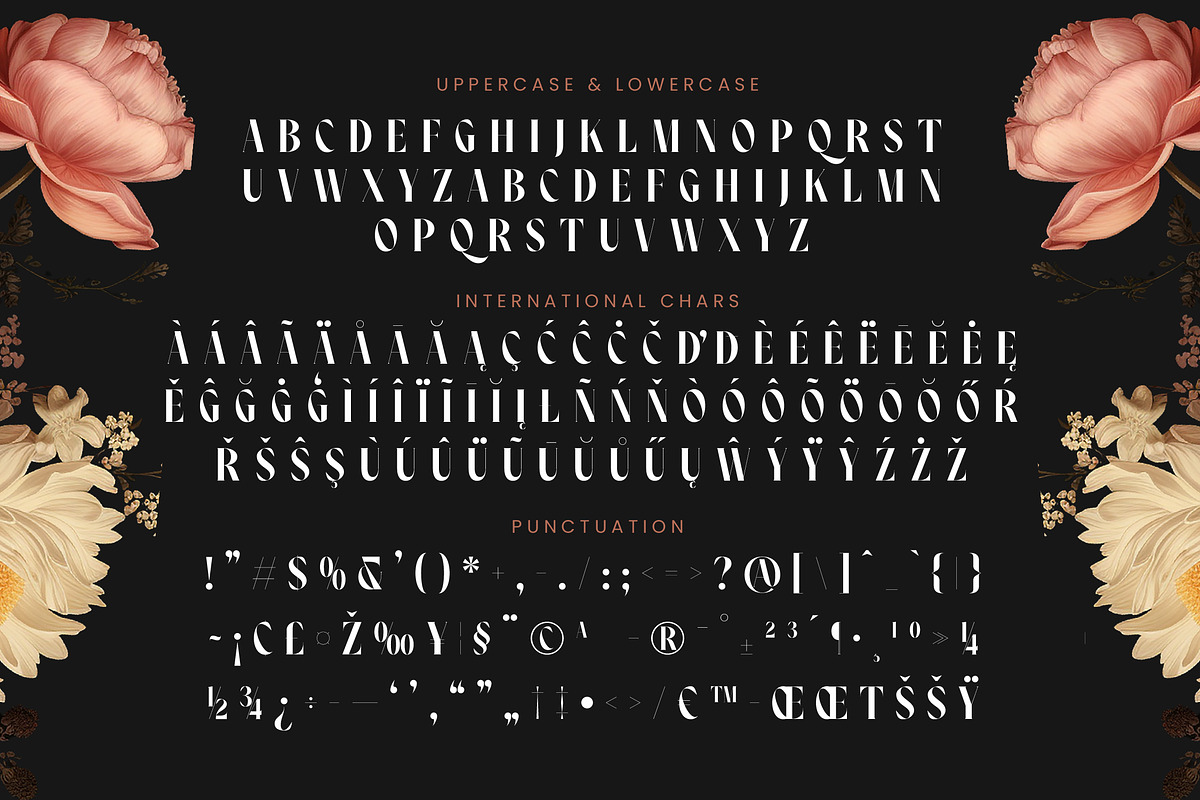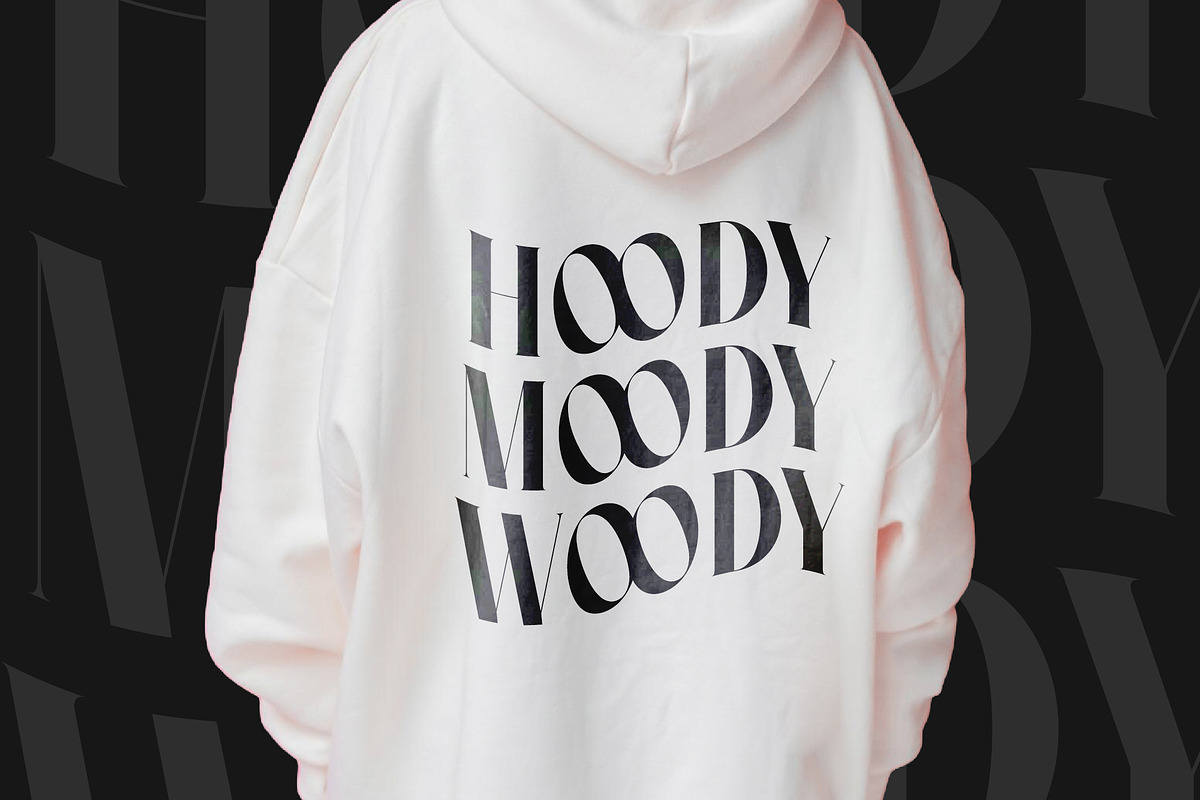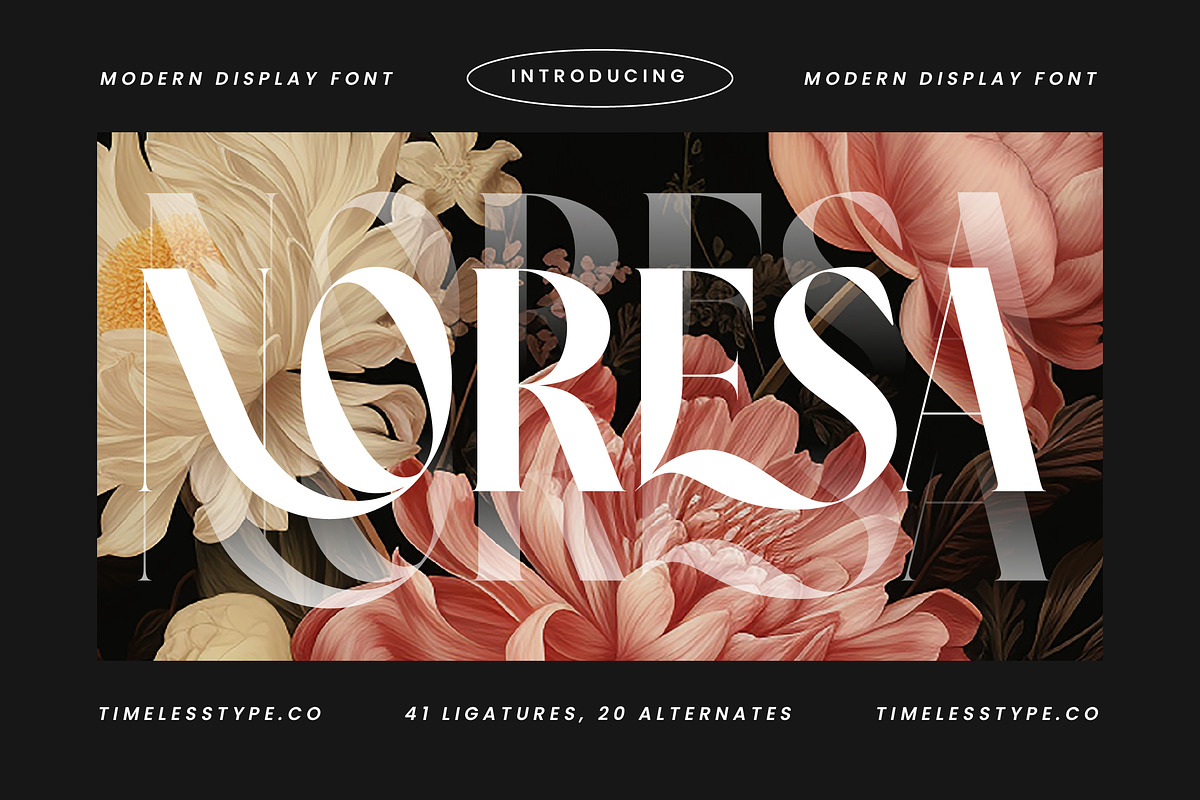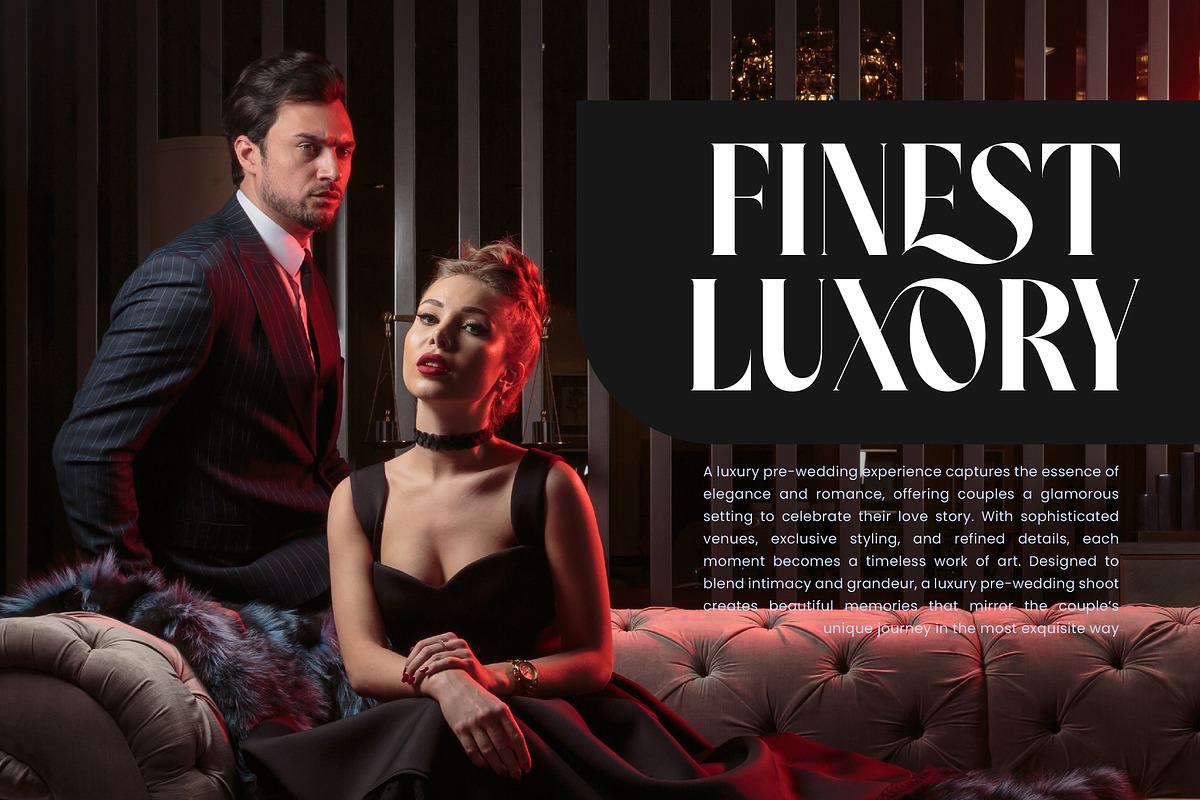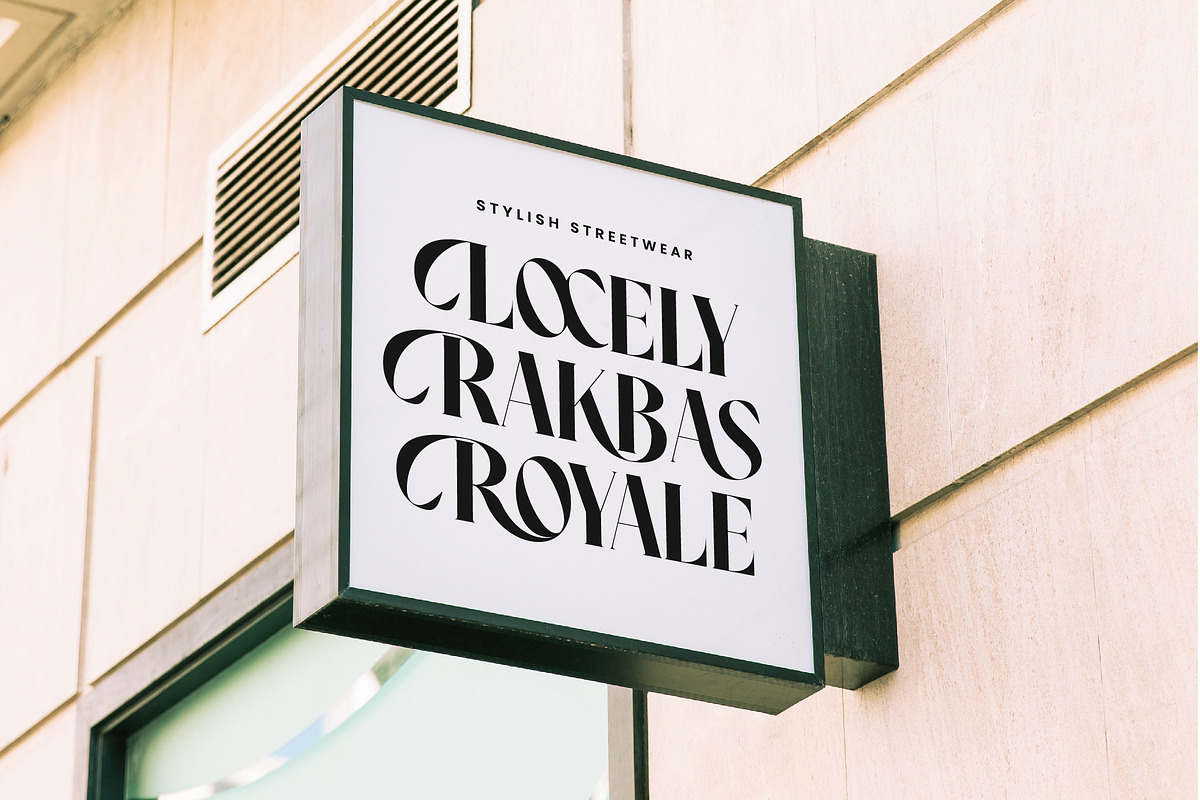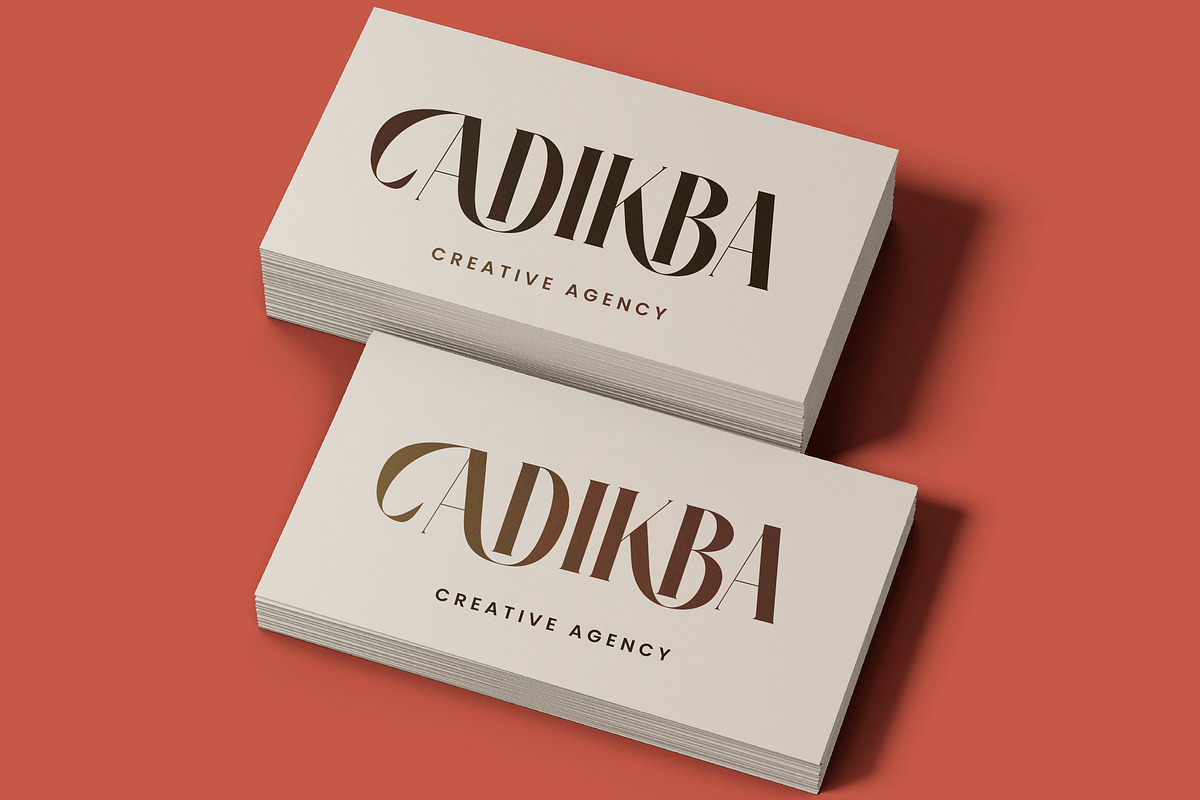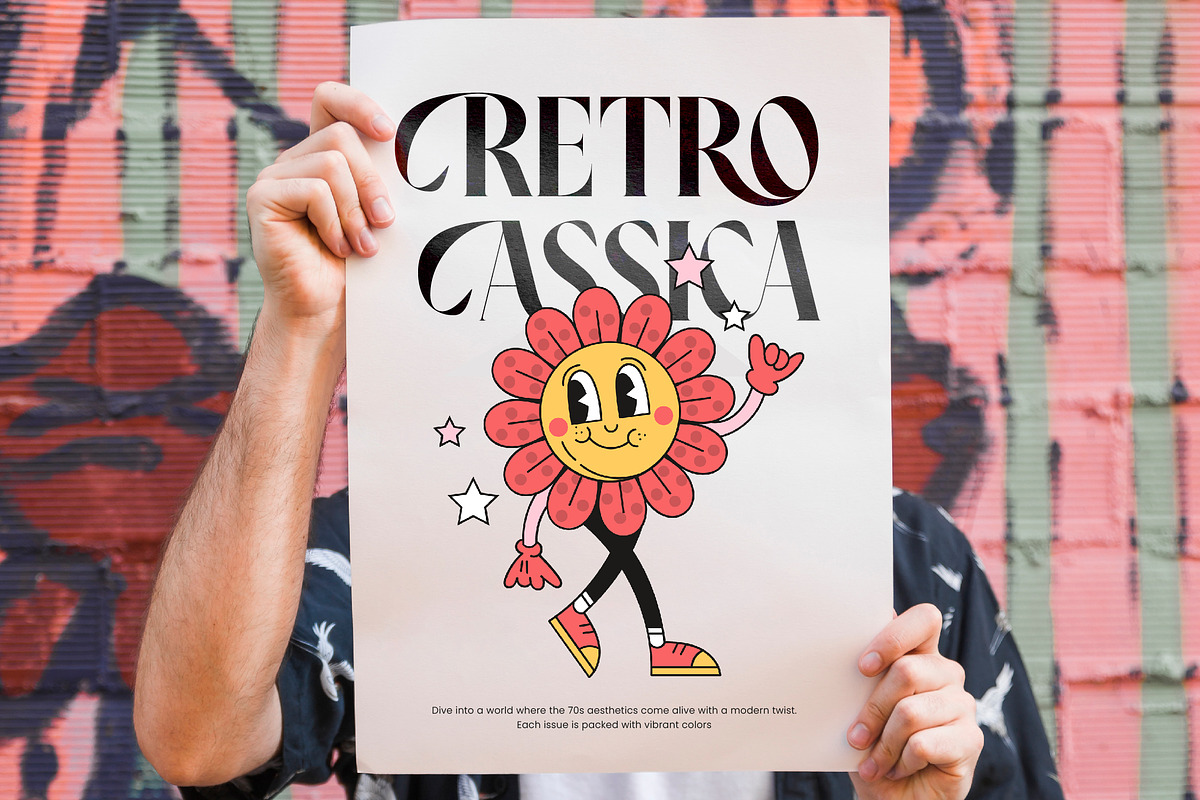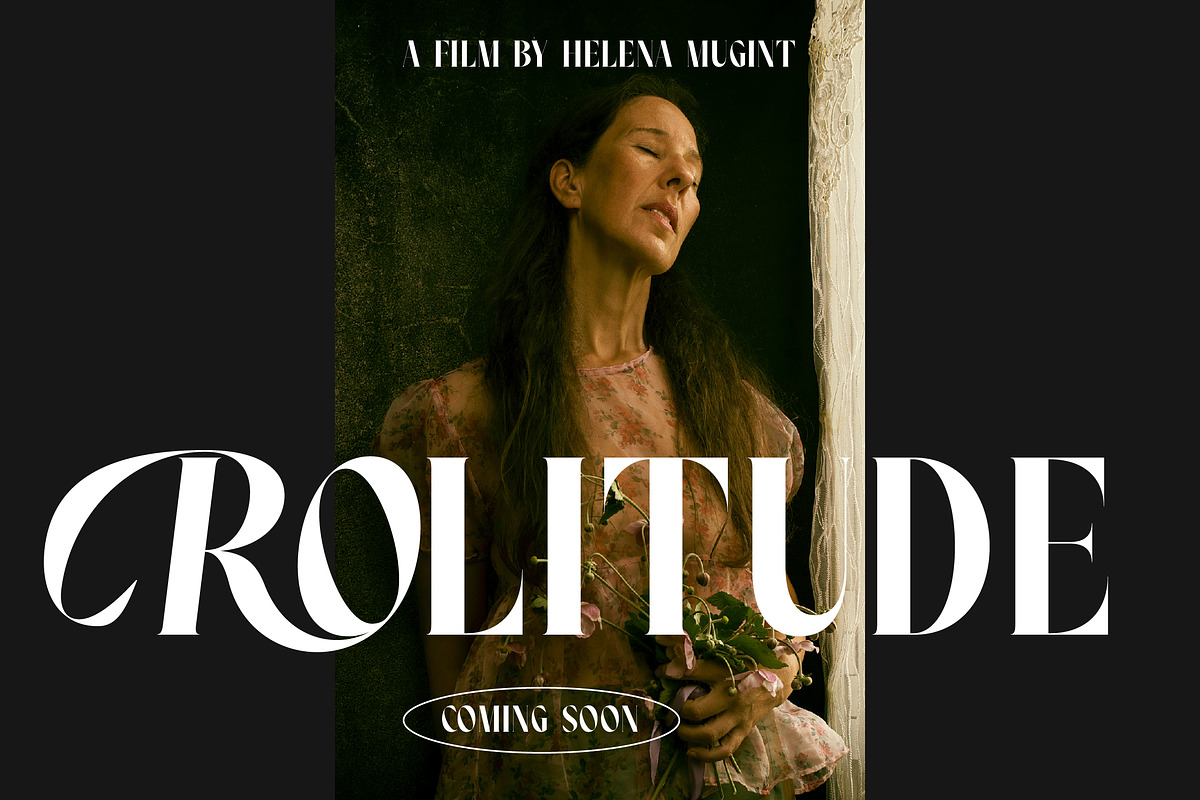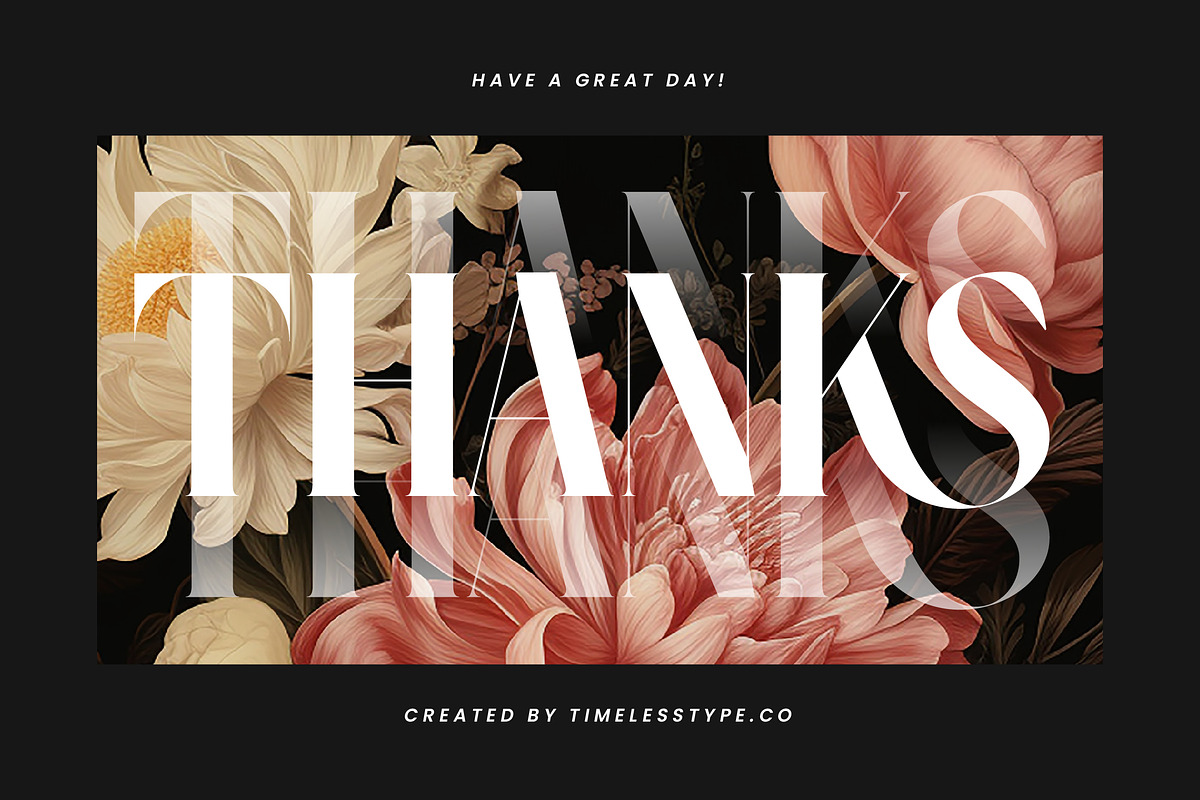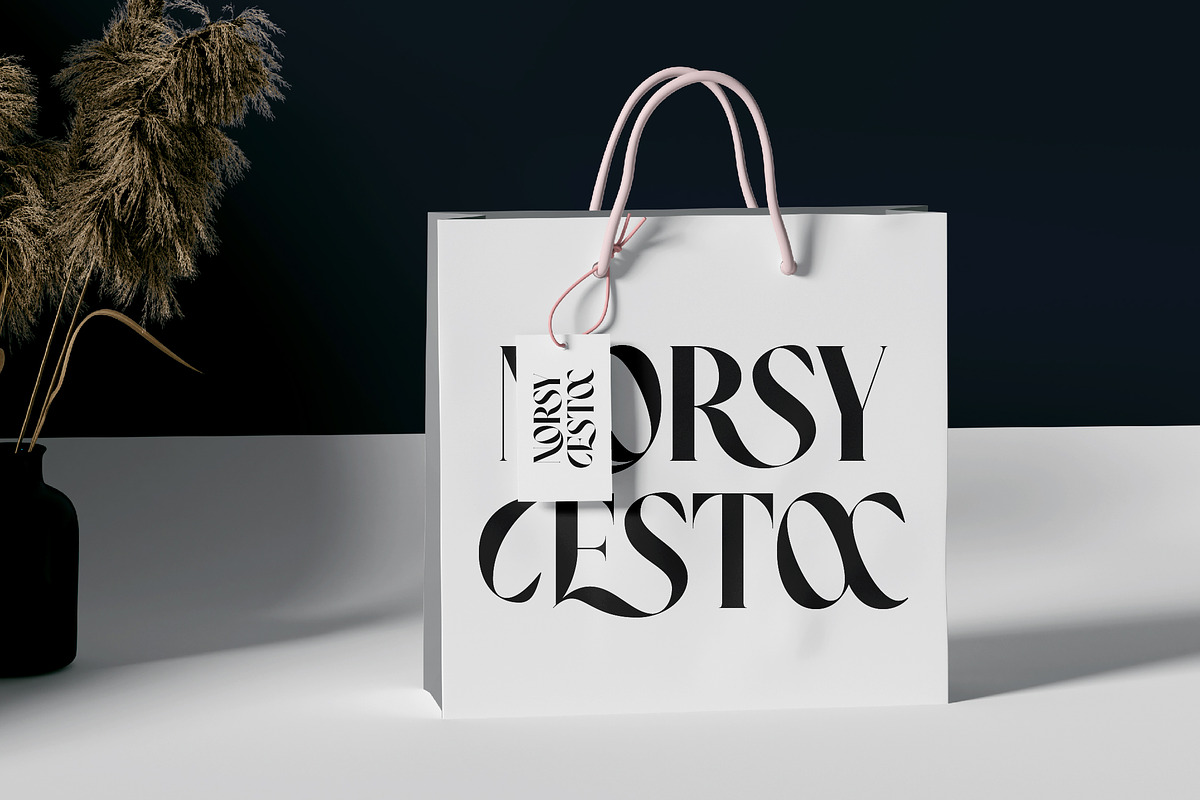
Noresa Modern Editorial Serif
Experience the breathtaking elegance of Noresa Modern, a typeface designed to infuse your creative projects with a sense of timeless sophistication and unparalleled grace. Its sweeping curves and sharp edges create a visual symphony that demands attention and lingers in the mind.
Drawing inspiration from the delicate dance of botanical forms and the refined aesthetics of high-fashion publications, this typeface captures the essence of organic beauty translated into digital precision. It evokes a world where classic craftsmanship meets contemporary vision, offering a bridge between the heritage of the past and the boldness of the future.
This modern serif display is crafted for luxury typography enthusiasts who seek a high-contrast serif with a distinctive editorial font personality. Every glyph is engineered for maximum branding impact, ensuring that your headlines and titles possess a magnetic pull that elevates the entire visual narrative.
Aligning perfectly with the current modern serif trend, this typeface stands at the forefront of editorial display fonts that prioritize unique identity. It embraces the shift towards character-driven typography, providing designers with a versatile tool that feels both fashion-forward and deeply rooted in typographic excellence.
Whether you are working on a high-end logo design or comprehensive branding identity, this font excels in editorial layouts and luxury packaging concepts. It is an exquisite choice for wedding invitations and fashion lookbooks, where beauty and legibility must coexist in perfect harmony.
To provide ultimate creative freedom, this set includes over 41 unique ligatures and 20 stylistic alternates that allow for custom-tailored designs. It also features swashes, full multilingual support, and a comprehensive set of international characters to ensure your message resonates across borders and cultures.
- Ligature 41 Alternate 20